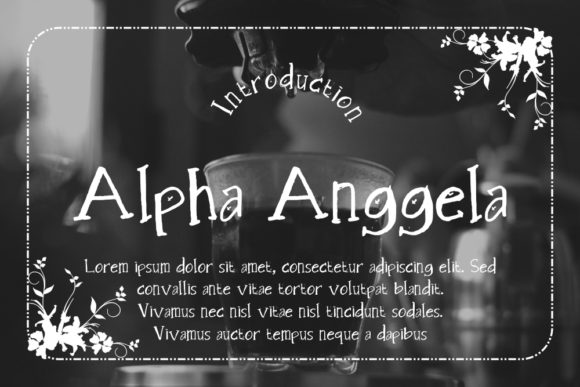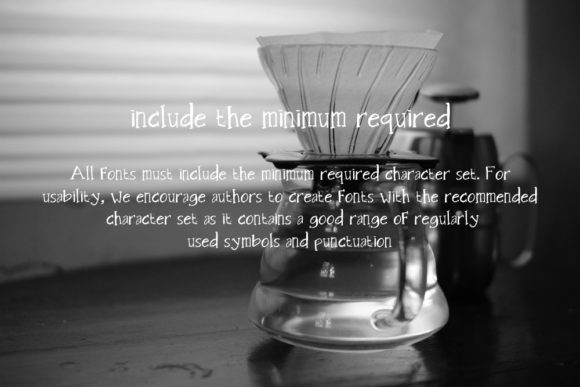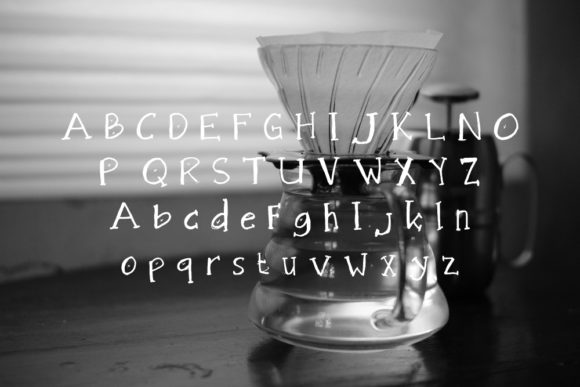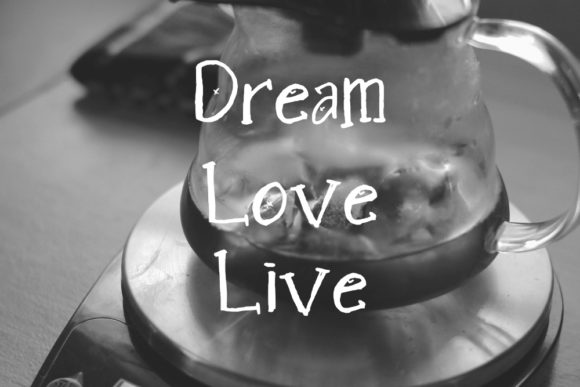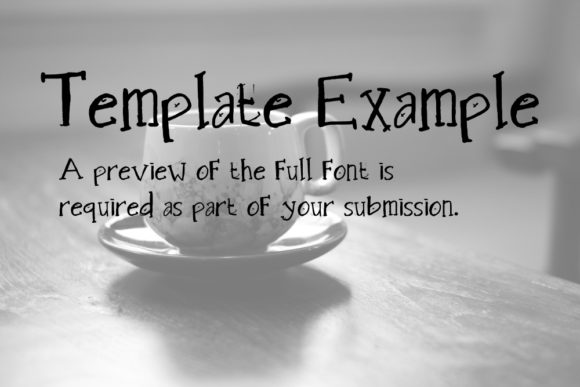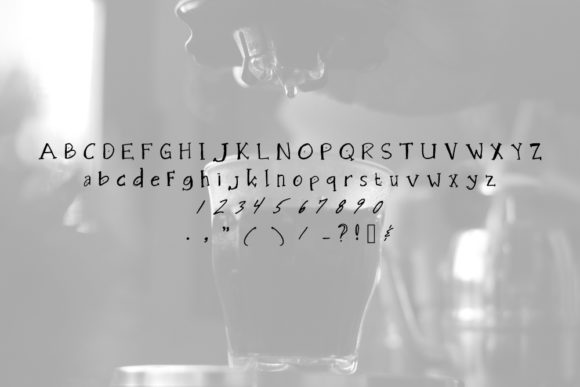
Alpha Anggela Font
About Alpha Anggela Font
Alpha Anggela is a fun handwritten font. It features a versatile look. Whether you’re looking for fonts for Instagram or calligraphy scripts for DIY projects, Alpha Anggela will turn any creative idea into a true piece of art!